30 Best Logo Fonts for Modern Brands
Choosing the right font for your logo is not easy. To help you out, we’ve compiled a versatile list of the absolute best logo fonts you can use for your business.
Modern sans serif fonts
Let’s start with the font family that is probably the most widely used in logo design and branding. Sans serif fonts (for those who need a reminder) are characterized by clean letters that don’t have strokes at the end or “feet” at the bottom of each letter. Some of the most famous fonts from this family include Helvetica, Arial and Futura.
However, these classic fonts aren’t a great choice for small business branding, since they won’t give your brand a very unique or memorable look. Instead, consider some of the following cool and modern typefaces.
1. Helvetica Now (from $35)
This modern take on the Helvetica font family includes 48 font styles, including italic, bold, hairline and regular. It’s a very professional looking font which would be suitable for a number of industries, including very serious ones like hospital and financial logos.
2. Proxima Nova (from $29)
This trendy font is super popular in website design and is used by big players like BuzzFeed, NBC News and Wired. Mark Simmons, the creator of this font wonders if its recent popularity is due to “open, circular forms, which perhaps give it a “friendly” appearance, especially in the lowercase”.
If you need a sleek-looking tech logo that still has a “friendly feel” Proxima Nova might just be the perfect choice!
3. Univers (from $35)
Univers is rather similar to Proxima Nova, but the letterforms have more rounded curves. The geometric forms and wide lettering offer this typeface a great degree of versatility.
4. Avenir Next (from $89)
Avenir Next was designed by graphic design legends, Adrian Frutiger and Akira Kobayashi and published by Linotype. With individual styles starting at $89 and the price for the whole font family being $499 it’s certainly not the most affordable option for small businesses and startups.
Nevertheless, if you’re considering a rebrand and want to invest in a modern, professional font that commands attention, this could make the perfect font for logos.
5. Mont (from $35)
Many sans serif fonts have a very rigid feel that might ultimately create an unwelcoming logo. If you opt for this one created by Font Fabric, I don’t think this is a concern you need to have. This geometric font has generous kerning, so it will help any design breathe. An intricate graphic part of the logo would pair well with Mont to help you create a strong brand image.
6. Kiona (from $28)
The geometric forms of this all caps typeface offer maximum legibility. So, if you want to showcase a creative business name,Kiona might be the perfect font for you. It comes in four different weights, bold, light, regular and semibold. Use this crisp font if you’d like to create a modern, minimalist brand identity.
7. Bebas Neue(free)
Who’d have thought that Netflix has a free font on their logo? Well, it’s true and this popular display font is also a big favorite with Youtubers, so it’s definitely on-trend right now. However, it’s not the most elegant or subtle of fonts so if you’re looking for a boutique logo or something fitting to a luxury hotel, you might avoid this one. Even if it would mean getting a free logo!
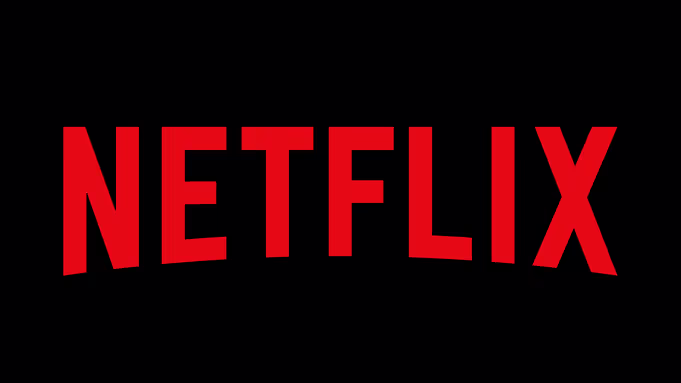
8. Cassanet (free)
This is definitely one of the best logo fonts out there, thanks to its unique look. Whether you want to create a minimalist brand identity for a beauty brand or even an art gallery Cassanet is a wonderful choice. The regular font is free, and you can pay what you can to download the whole font family!
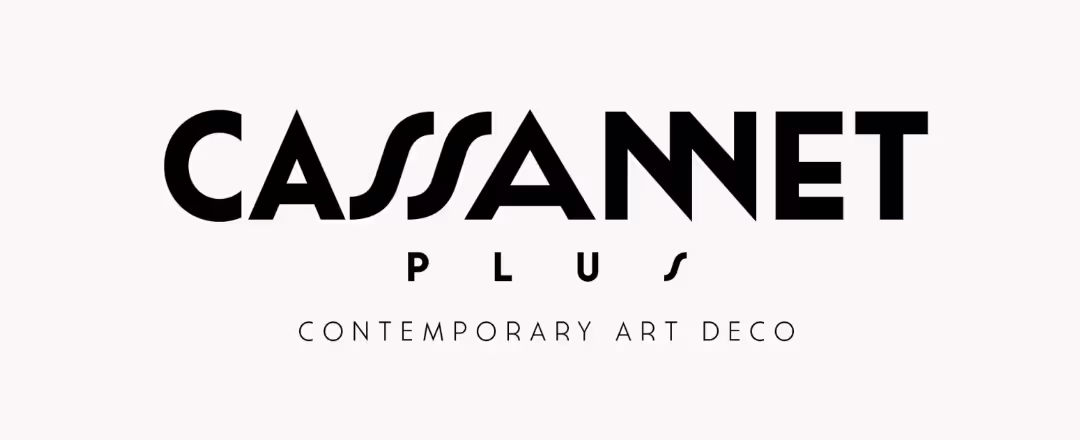
9. Futura (free)
As far as classic logo fonts go, Futura is certainly one of the best ones. The geometric shapes of the letters make this font extremely versatile. Don’t believe me - brands as diverse as Domino’s Pizza, Dolce and Gabbana and Nike use this iconic font.
10. Goia
Let’s switch things up with a sans serif font that’s anything but common! Goia is a perfect artsy font if you’re looking for a new logo for your gallery, podcast, or fashion brand.
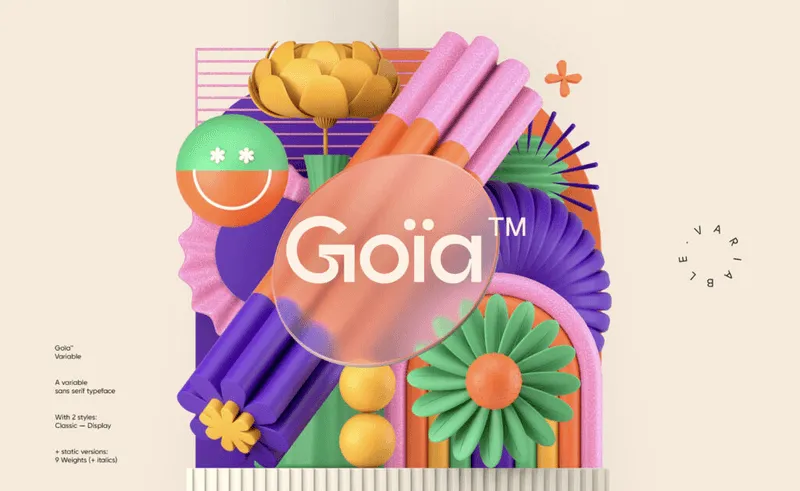
Elegant serifs
Serif fonts often have a traditional look, although there are plenty of great modern alternatives in this decorative style of typography. Designing a logo with serif fonts will give your brand an elegant and timeless look.